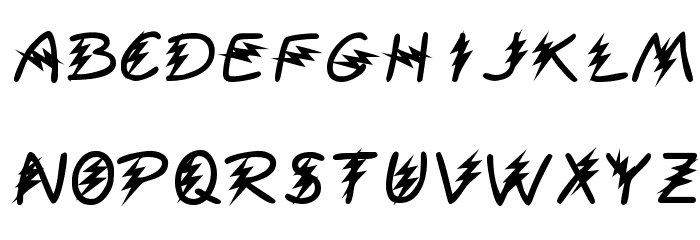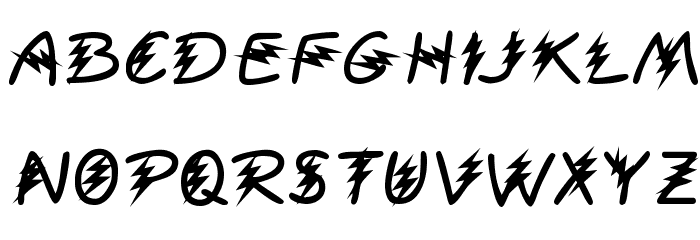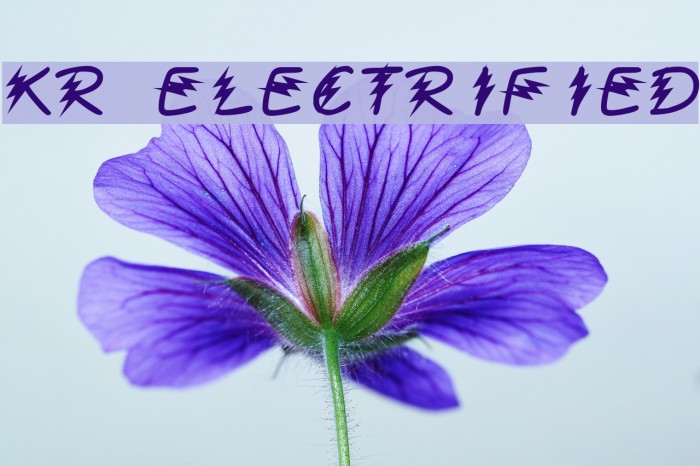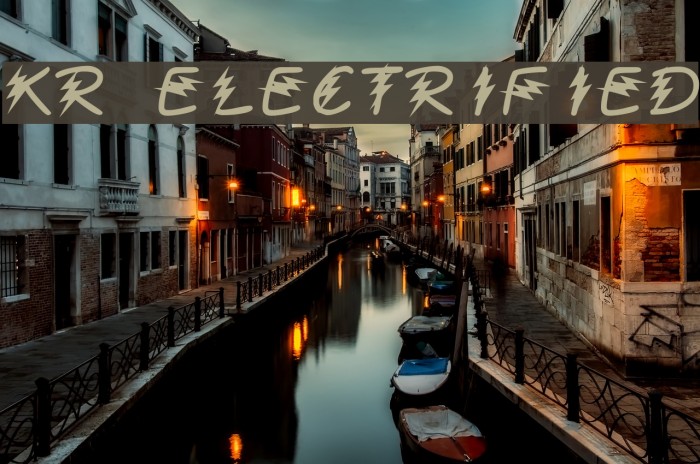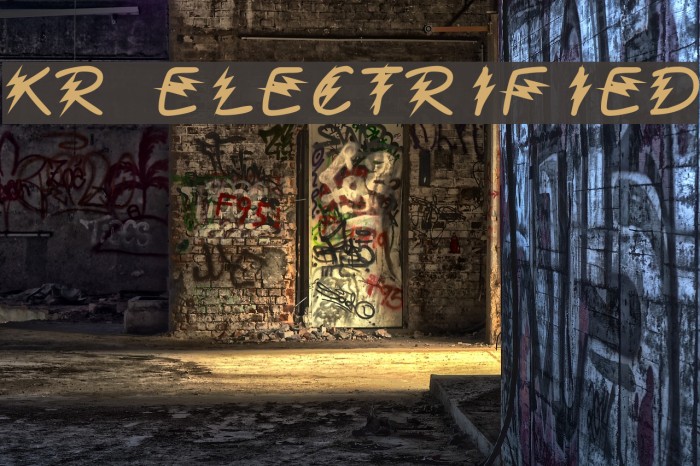
KR Electrified Font
This font features a dynamic and energetic style, characterized by its bold, jagged edges that mimic the appearance of lightning bolts. The letters are sharply angled, giving a sense of movement and electricity. Each character is uniquely designed to incorporate these electrifying elements, making it stand out with a powerful visual impact. The uppercase and lowercase letters maintain a consistent theme, while the numbers and special characters follow suit with the same electrifying design. This font is perfect for projects that require a bold and striking appearance.
An electrifying font with bold, jagged edges resembling lightning bolts.
- Proposed Projects: Ideal for music album covers, event posters, video game titles, and branding for energy drinks.